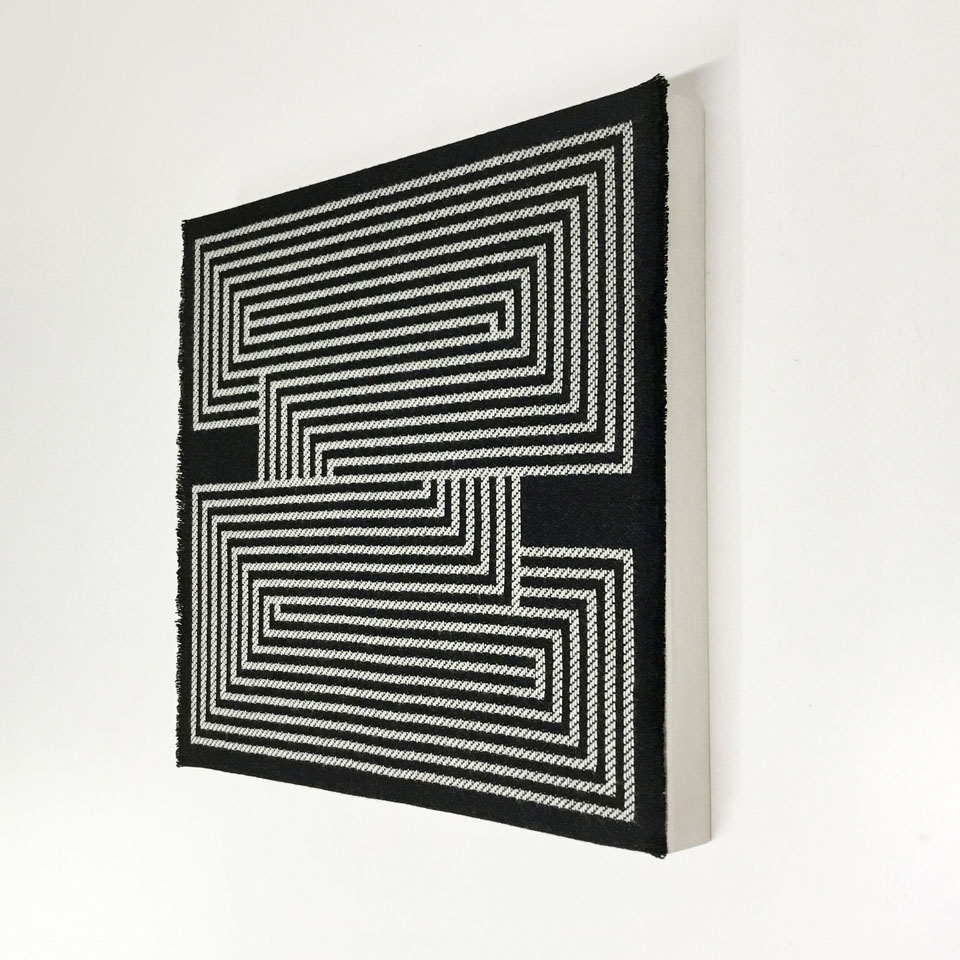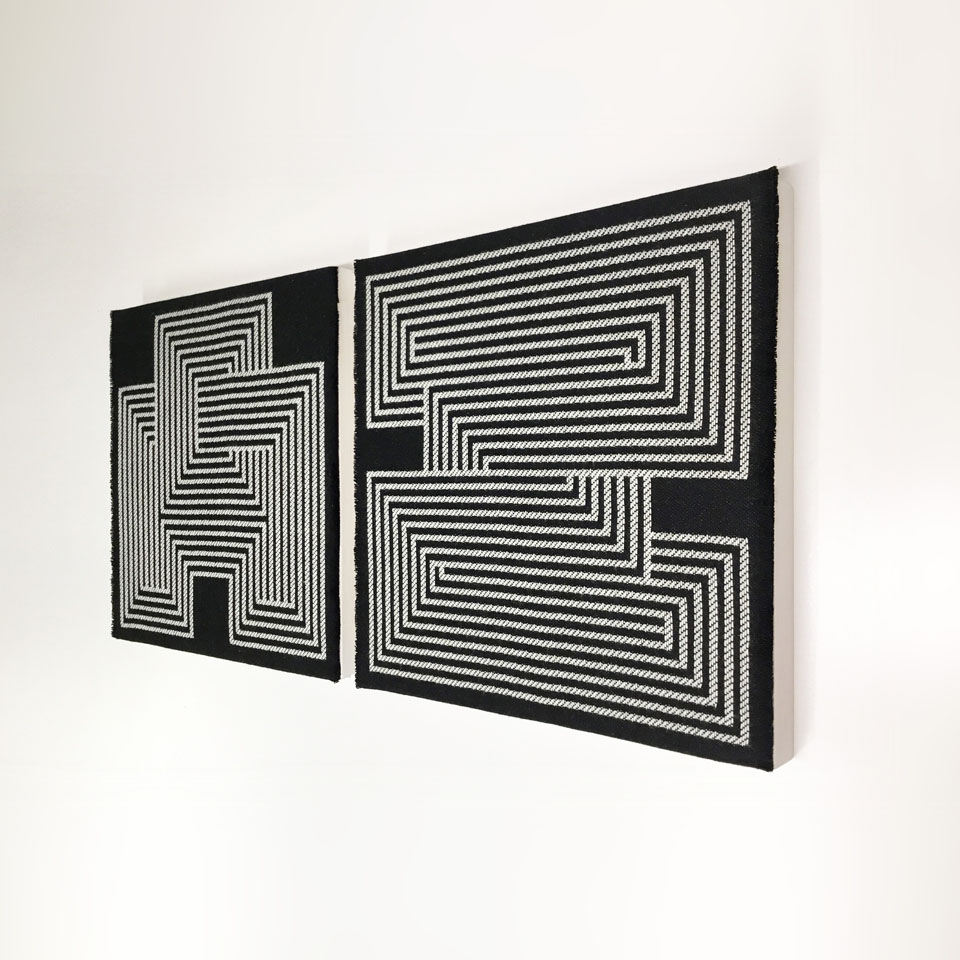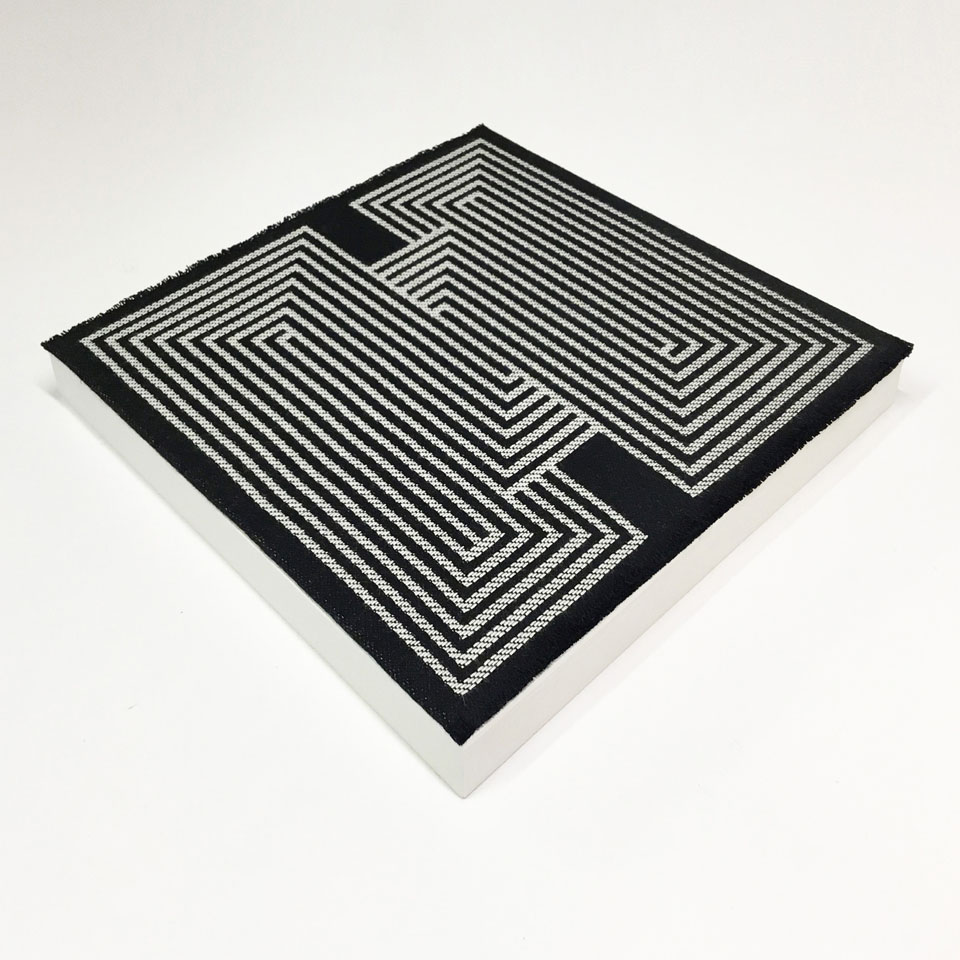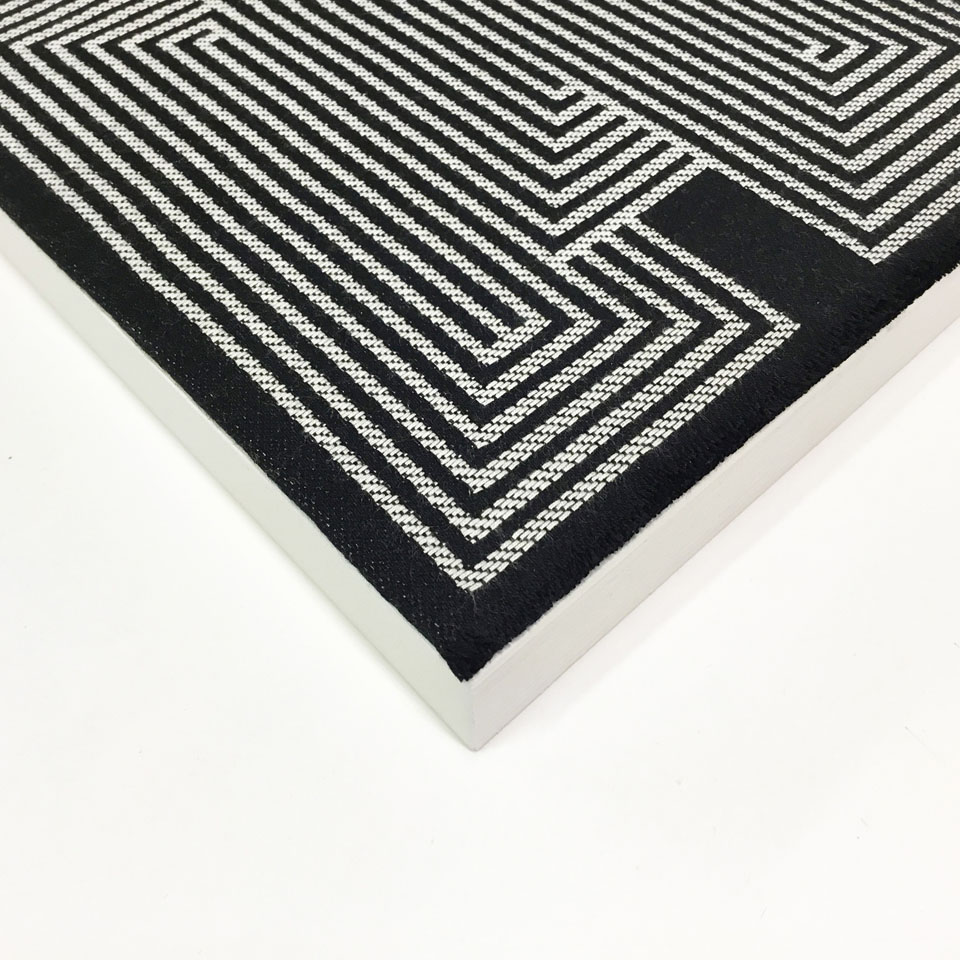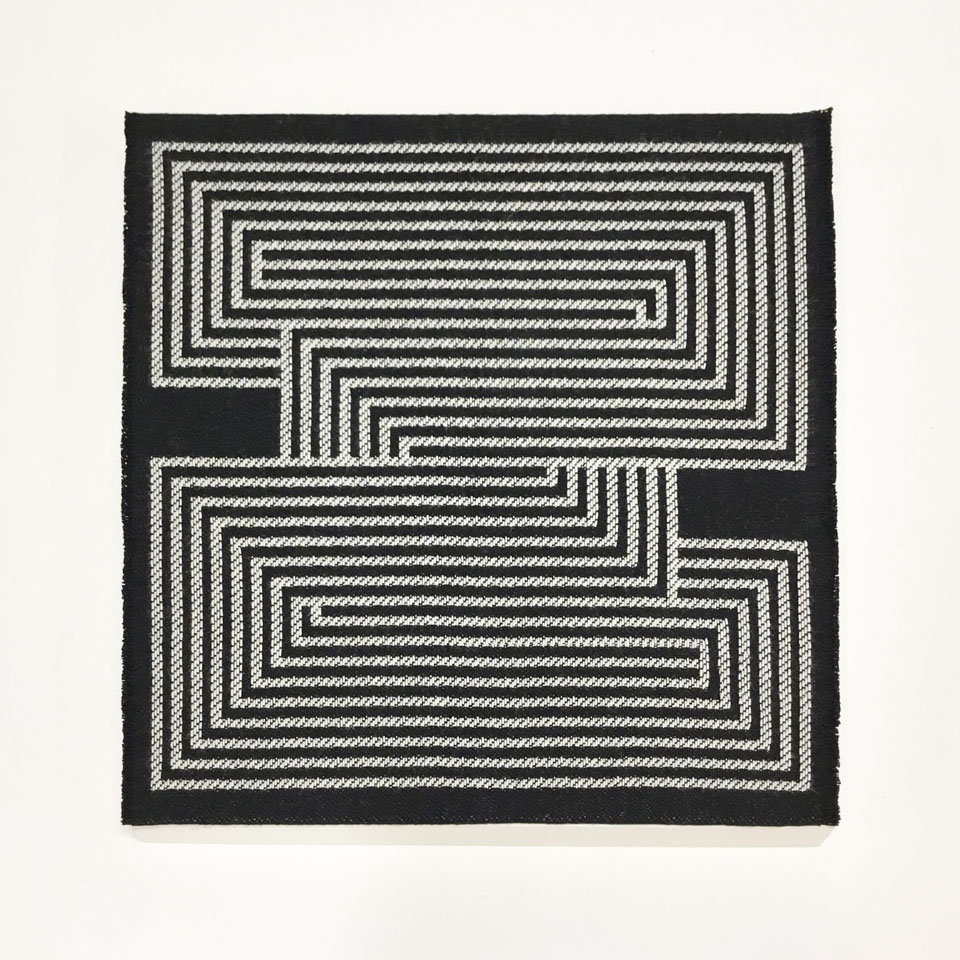
“Z maze” Wall Art
Letter "Z" composed from lines and outlines that intertwine. Woven on a jacquard loom.
Mounted for wall hanging, with fringe detail revealed at two side edges. Signed on back.